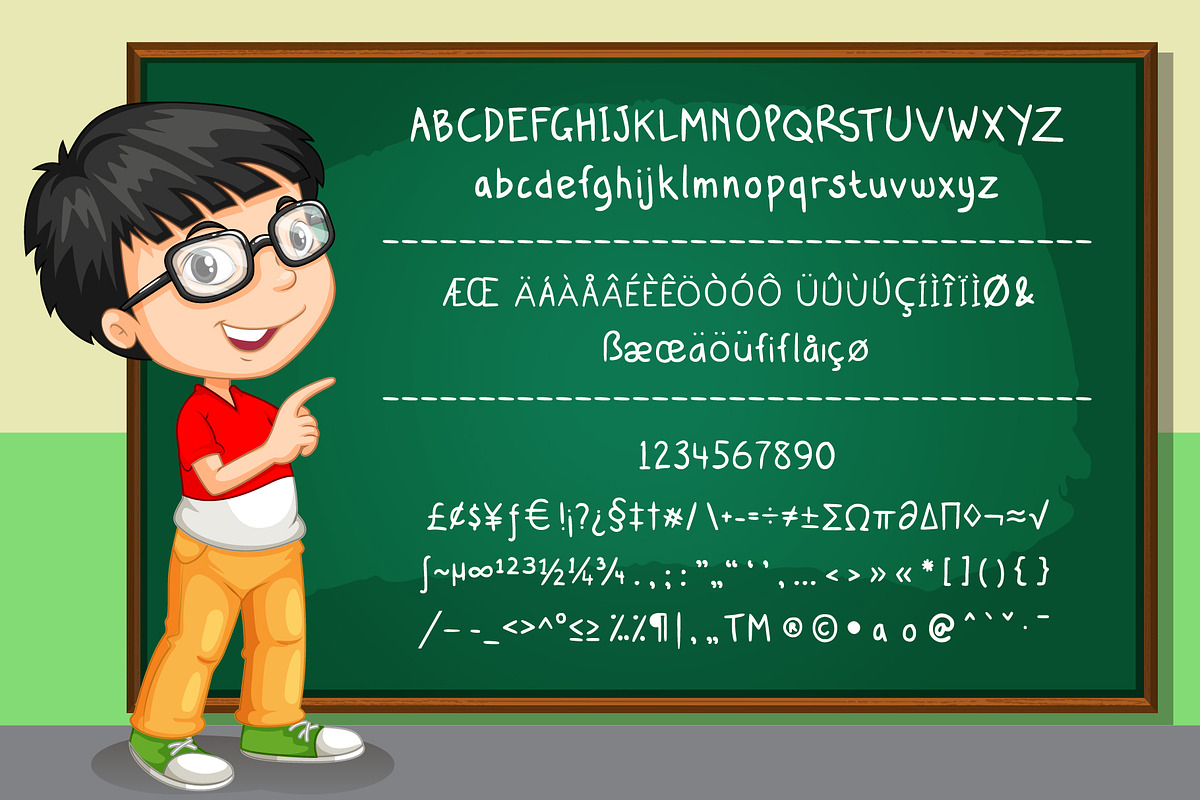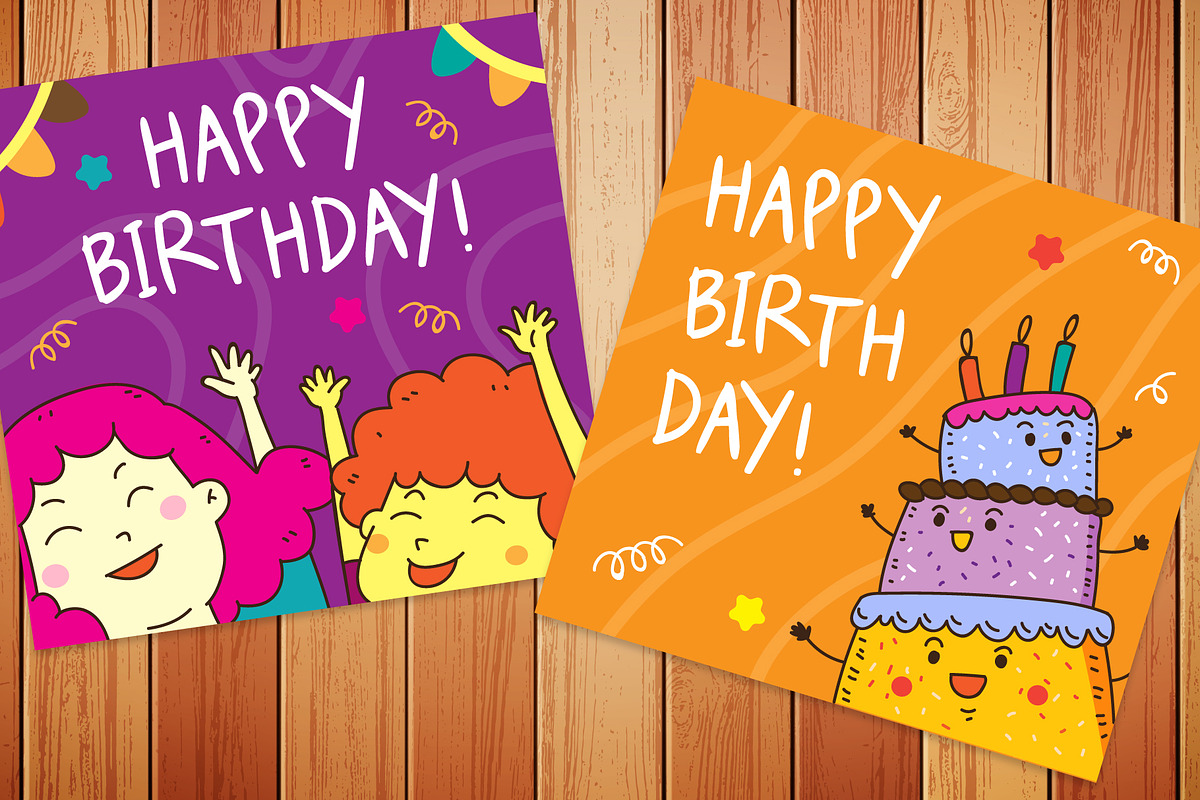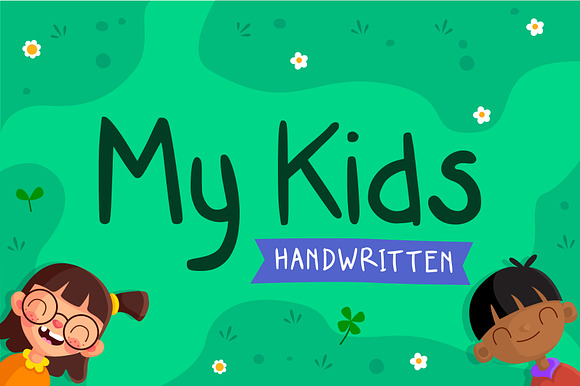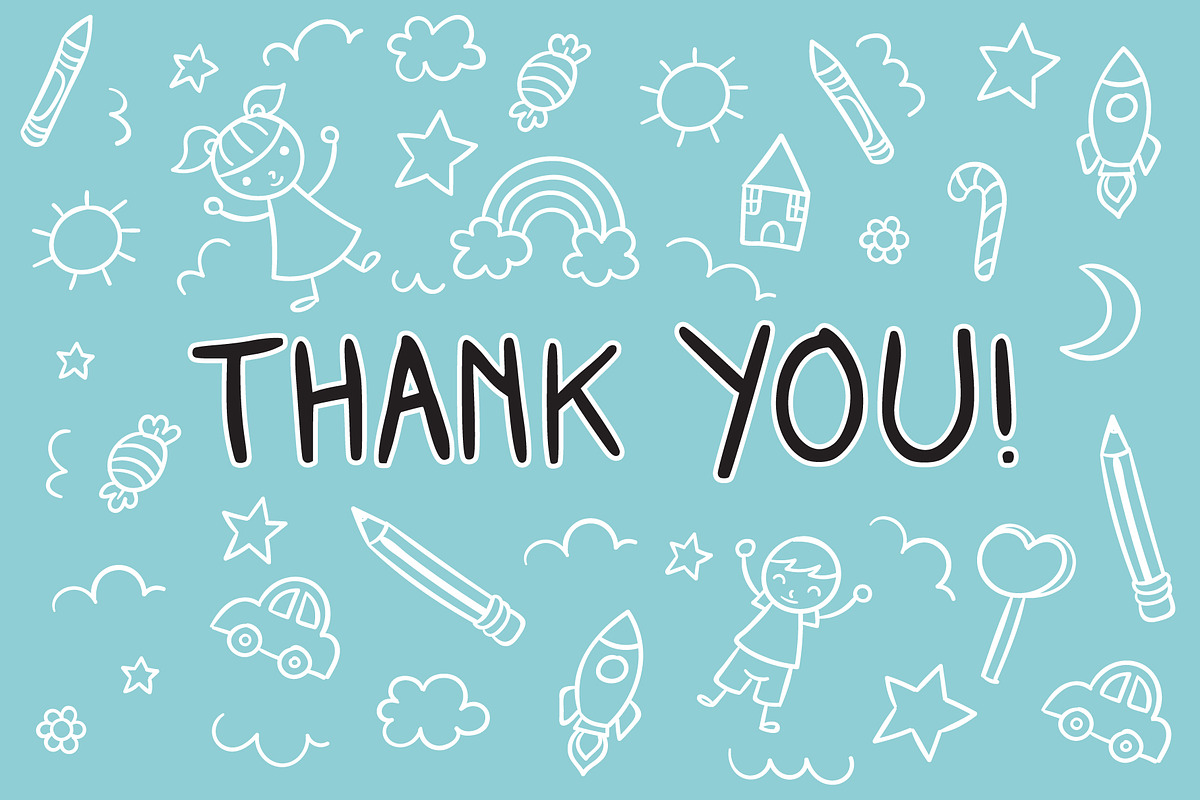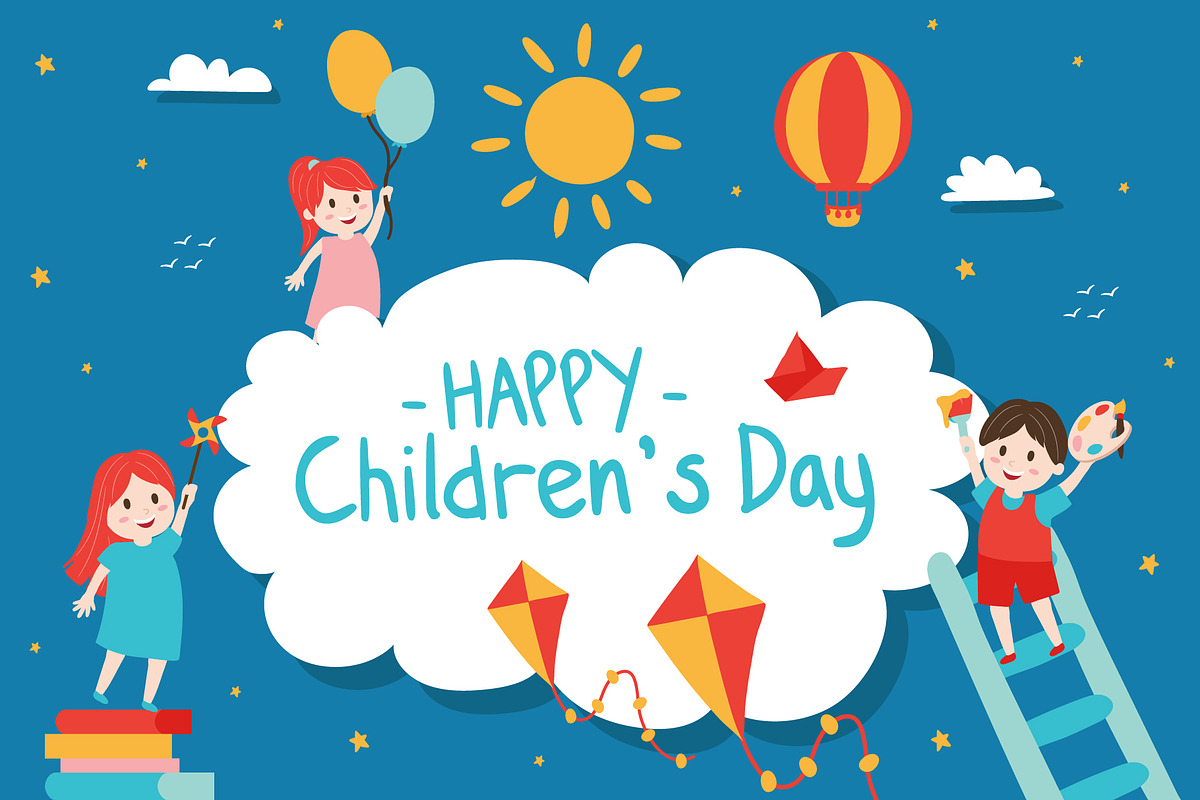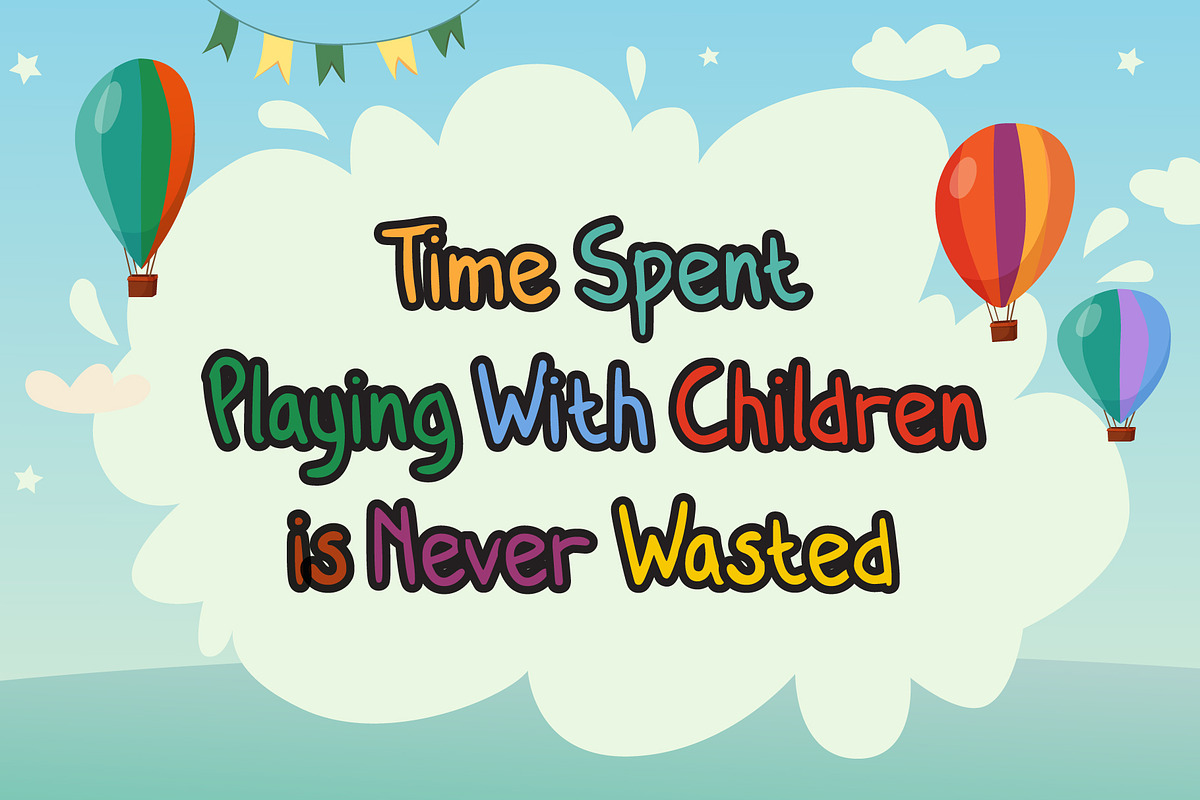
My Kids Handwritten - Font
My Kids Handwritten Font Handwritten style fonts, suitable for use with children's themed designs. Perfect for children's story book letter, branding projects, logo, wedding designs, social media posts, advertisements, product packaging, product designs, label, photography, watermark, invitation, stationery and any projects that need handwriting taste.
Fonts include multilingual support